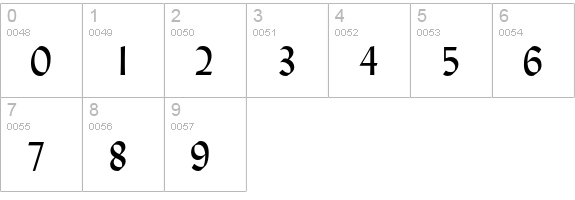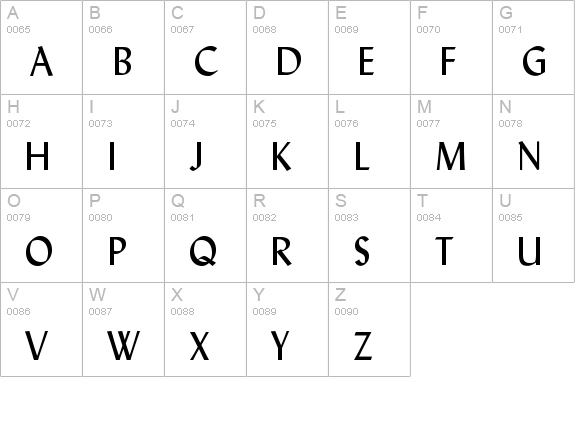
The Lydian font is a stunning and elegant typeface that exudes sophistication and grace. Its delicate curves and refined lines make it a perfect choice for adding a touch of class to any design project. With its timeless appeal and versatile nature, Lydian font is ideal for a wide range of applications, from branding to editorial design. What sets the Lydian font apart is not only its beauty but also its accessibility. This exquisite typeface is available for free download at FontsMarket.com, making it easy for designers and creatives to incorporate its charm into their work without any additional cost. So why wait? Enhance your projects with the timeless elegance of Lydian font today!